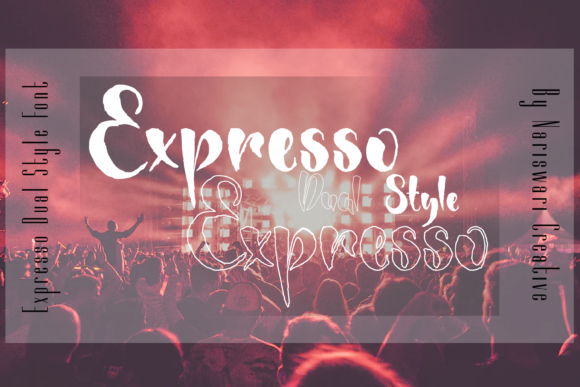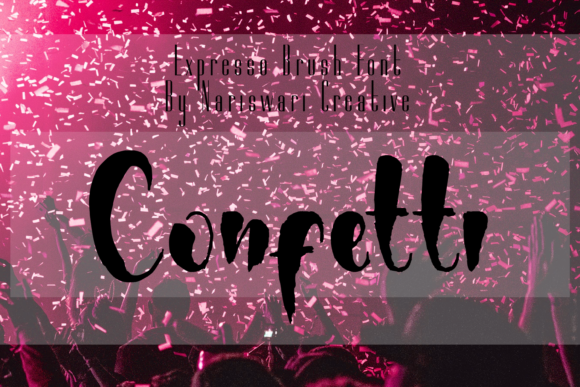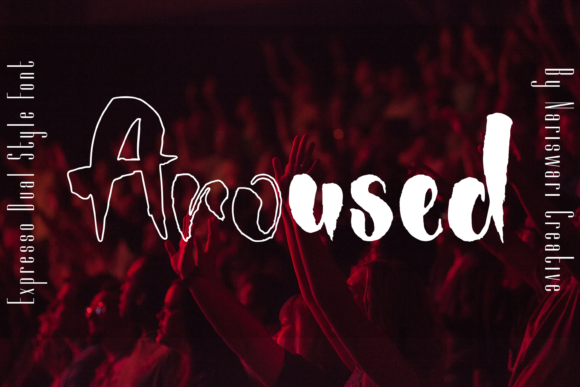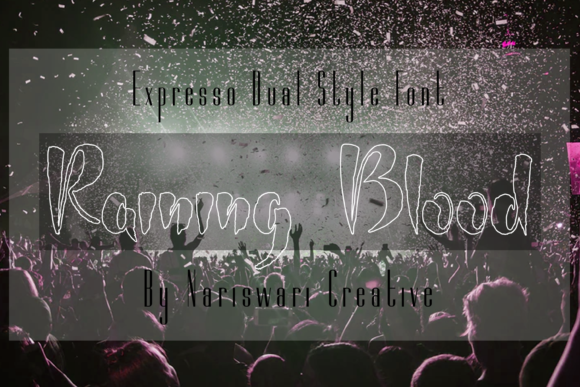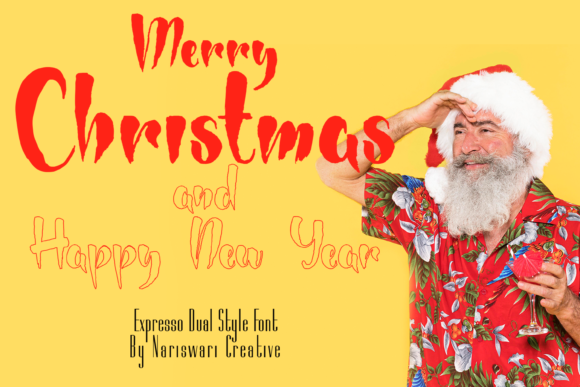
Expresso Font
About Expresso Font
Expresso is a beautiful and bold handwritten font in a creative and unique style. It is uniquely created to give authenticity to your outstanding projects! Use it for magazines, social media posts, merchandise, makeup products, fashion, flyers, posters, and so much more.